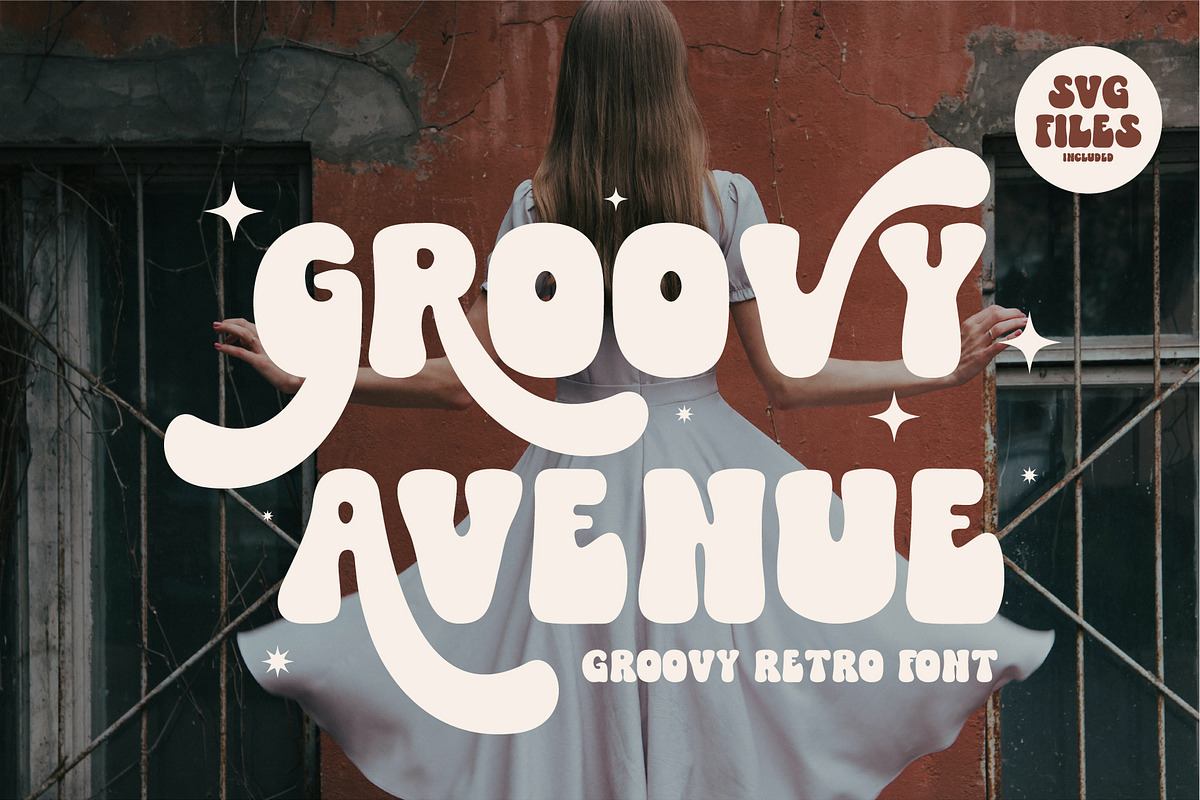
The Groovy Avenue — A Groovy Retro Font Free Download is a fun and vibrant typeface with a nostalgic 70s retro style, perfect for projects that need a bold and funky touch. Ideal for creating vintage logos, posters, event invitations, branding, and social media graphics, this font adds a playful, retro vibe to any design. Please note, for commercial use, a license must be purchased. You can download it for free for testing purposes.
With its bold curves, thick lines, and playful aesthetic, the Groovy Avenue — A Groovy Retro Font Free Download is perfect for projects that want to evoke a retro, energetic feel. Whether you're designing for music events, retro branding, or playful advertising, this font will bring a fun and dynamic look to your work.
Get the Groovy Avenue — A Groovy Retro Font Free Download today and add a colorful, retro touch to your designs with this bold and groovy font.